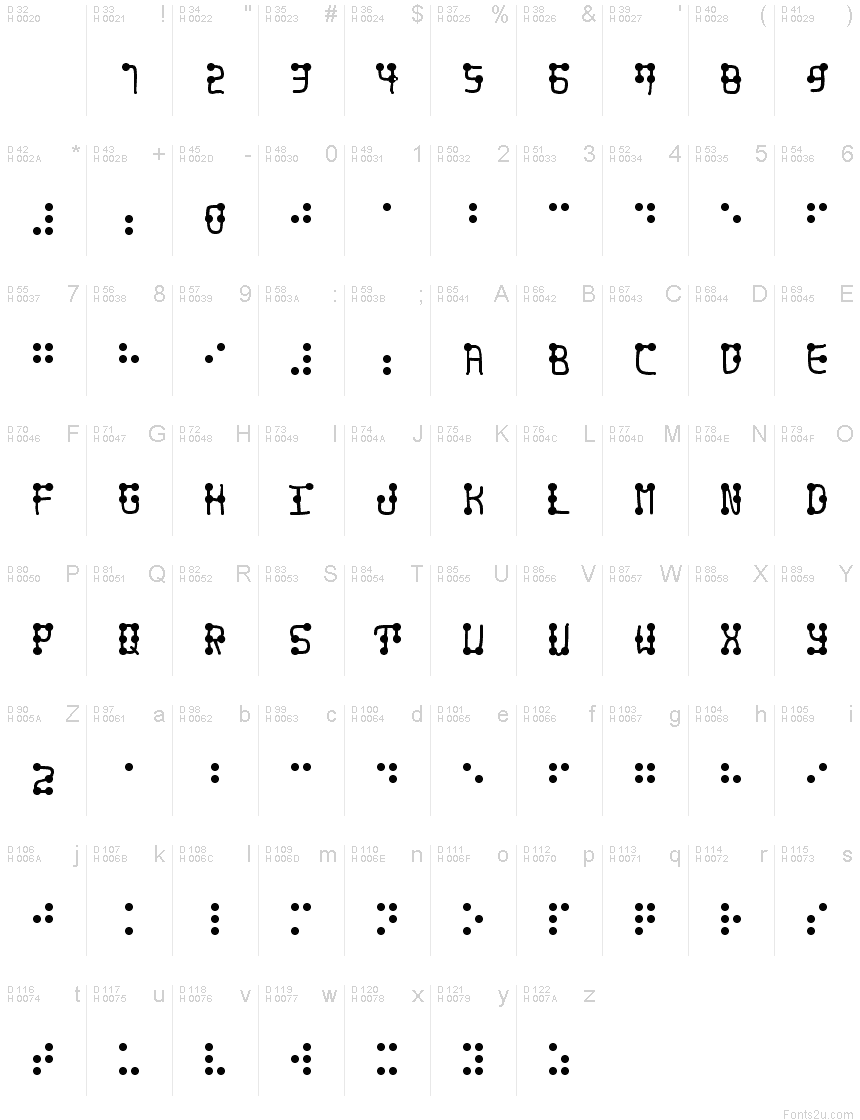
enen eng
Enen Eng font by Kayo Masashi of FLOP Design is a free decorative display typeface that turns every letter into a tiny sculpture. Thick, inky strokes bend like wire, punctuated by round ball terminals that look like beads strung along a line. The result feels playful and a little strange—in a good way—giving headlines a bouncy, hand-built energy that you can’t fake with filters or outlines.
Using Enen Eng, your words instantly stand out on kids’ posters, party invitations, quirky logos, indie zines, comics, and characterful packaging. This free font works best at larger sizes where those bold dots and curves can really pop; keep body text in a simple sans serif so enen eng can do the showboating.